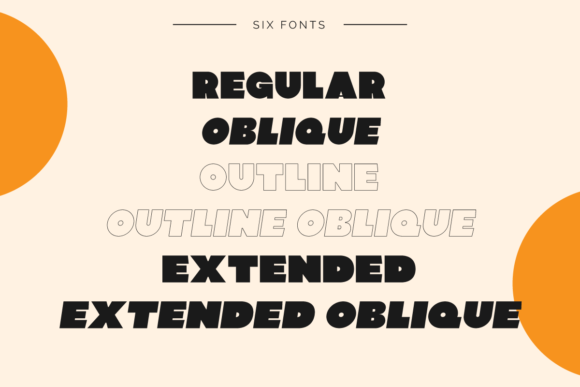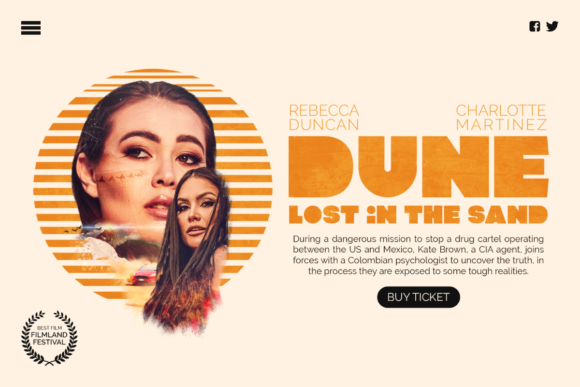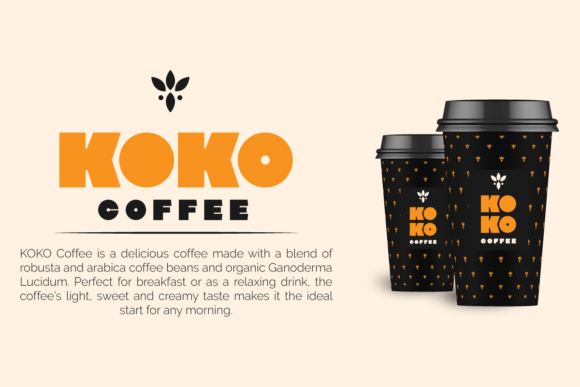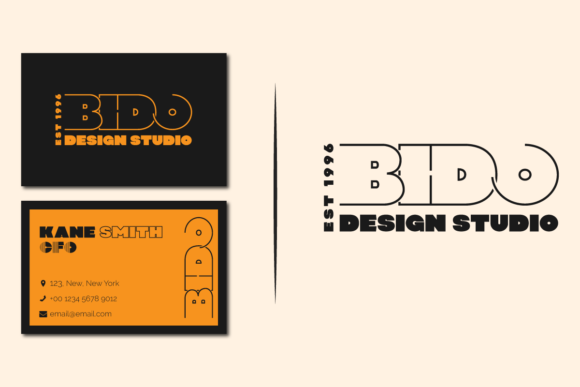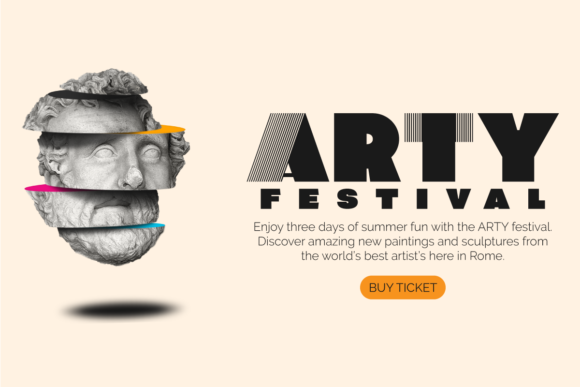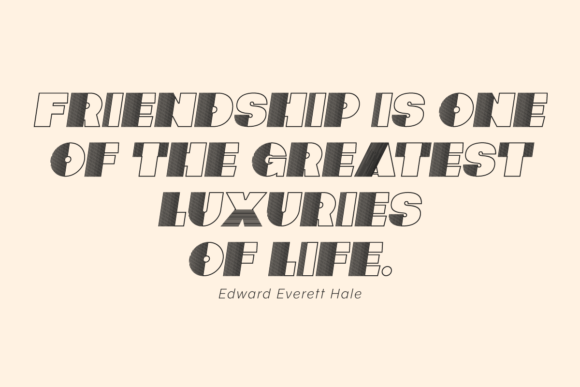
Unleash Your Creative Vision with the Perfect Font
Imagine you’re working on a new project, and you’re struggling to find the perfect font to bring your idea to life. The words on the page just aren’t resonating with the message you want to convey. You’ve tried a few different options, but nothing seems quite right. That’s when you stumble upon the Avineo Font – a cool and modern display font that’s sure to captivate your audience.
The Avineo Font is designed to be versatile, making it perfect for a wide range of creative projects, from logotype and corporate identity to posters, music, and even comic books. With its sleek and modern design, it’s no wonder why designers are flocking to this font for their most important projects.
Key Features of Avineo Font
- Unique Character Set: Avineo Font features a comprehensive character set, including Latin, Cyrillic, and Greek alphabets, as well as a wide range of punctuation marks and symbols.
- Stylistic Variations: The font offers several stylistic variations, including bold, italic, and condensed versions, allowing users to add visual interest and diversity to their designs.
- High-Quality Typography: Avineo Font is crafted with attention to detail and a focus on high-quality typography, resulting in a clean, modern, and highly legible design that is perfect for a wide range of applications.
Avineo Font Review
Overall, I’m impressed with the Avineo Font. It’s a clean, modern sans-serif font that’s perfect for digital designs. Here are some things that work well:
- ✨ Elegant and refined aesthetic: Avineo has a sleek, sophisticated look that works well in corporate, tech, and modern branding.
- ✨ Excellent legibility: The font is highly readable, even at small font sizes, making it ideal for digital displays and online content.
- ✨ Large character set: Avineo comes with a comprehensive set of characters, including international languages and symbols.
- ⚠️ Limited historical ligatures: While Avineo has a wide range of ligatures, it’s missing some of the more complex historical ones, which may be a drawback for designers who need them.
- ⚠️ No contextual alternates: The font doesn’t have contextual alternates, which means that letter combinations may not be optimized for readability.
Overall, I think Avineo is a great choice for modern digital designs. While it may not be perfect for every project, its clean lines, excellent legibility, and comprehensive character set make it a solid addition to any designer’s toolkit.
Avineo Font Practical Application Guide
Tips for Getting the Most Out of Avineo Font
Here are some tips for getting the most out of Avineo Font:
- Experiment with different font sizes and styles to achieve the desired look.
- Pair Avineo Font with other fonts to create a unique and visually appealing design.
- Use Avineo Font for headings and titles to add a touch of elegance.
Alternatives to Avineo Font
Montserrat is a modern sans-serif font that originated from Google Fonts. It is ideal for digital products and websites that require a clean and minimalist look. Montserrat has a geometric feel to it and is highly legible even at small font sizes. Compared to Avineo Font, Montserrat has a more geometric and structured design, making it suitable for digital products.